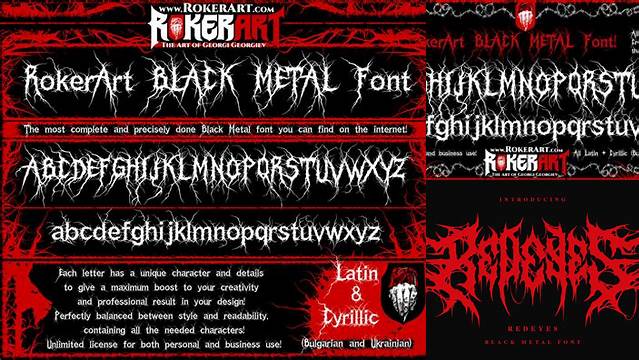
Free Black Metal Font Generator Online
Hey guys! Ever been captivated by the raw, aggressive aesthetic of black metal? The jagged, often illegible fonts are a huge part of that iconic look. Well, you're in luck! We're diving deep into the world of black metal font generators – your free online ticket to creating that wicked visual style. This article is your ultimate guide to finding, using, and understanding these awesome tools.
What is a Black Metal Font?
Before we jump into the generators, let's define what makes a font truly black metal. Think sharp, angular lines, often distorted and almost illegible. Imagine thorny vines, shattered glass, or even the teeth of some monstrous beast. Black metal fonts aim to evoke a sense of darkness, chaos, and rebellion. They're not exactly your everyday Arial or Times New Roman! These fonts are a crucial element in the overall visual presentation of the genre, mirroring the extreme and often controversial themes found in black metal music. The harshness of the font visually complements the intense and aggressive nature of the music itself. It's a perfect example of form following function, where the visual style reinforces the aural experience. Black metal fonts are more than just letters; they're a statement.
Why Use a Black Metal Font Generator?
So, why not just hunt down individual fonts? Well, using a black metal font generator offers several advantages. First off, it's fast and convenient. You can whip up variations and experiment with different styles in seconds. Many online generators are also free, which is a huge plus. You don't need to be a graphic design whiz or spend a fortune on software. Plus, generators often offer a level of customization that you wouldn't get with pre-made fonts. You can tweak the thickness, sharpness, and overall distortion to create something truly unique. Think of it as your own personal black metal typography lab! It gives you the creative freedom to explore the visual depths of the genre and craft logos, artwork, or anything else that screams (or should we say, shrieks?) black metal.
1. Exploring Free Online Black Metal Font Generators
Alright, let's get to the good stuff! The internet is teeming with free online black metal font generators, but finding the right one can be a bit of a quest. We'll explore some of the top contenders, highlighting their pros, cons, and unique features. This includes generators that offer a wide range of customization options, as well as those that specialize in creating specific black metal font styles. We'll also discuss how to identify generators that produce high-quality results and avoid those that might result in pixelated or distorted images. The goal here is to empower you with the knowledge to navigate the online landscape and find the perfect tool for your specific needs. Whether you're designing a band logo, creating album art, or just want to add a touch of darkness to your project, we've got you covered.
2. Top Black Metal Font Generator Websites
Time to name names! We'll delve into some specific websites that offer black metal font generation services. We'll provide direct links, walk you through their interfaces, and even show you some examples of the fonts they can create. Think of this as your curated list of the best resources the web has to offer. We'll explore websites that offer a variety of styles, from the classic jagged look to more modern interpretations of the genre. We'll also highlight any unique features that each generator offers, such as the ability to add custom symbols or adjust the level of distortion. The aim is to give you a comprehensive overview of the available options, so you can make an informed decision about which tool is right for you. After all, the perfect font is just a few clicks away!
3. How to Use a Black Metal Font Generator
Okay, you've found a generator – now what? This section breaks down the step-by-step process of using a black metal font generator. We'll cover everything from inputting your text to downloading the final image. We'll walk you through the interface, explaining each option and setting along the way. This will include things like choosing the font style, adjusting the size and spacing, and adding any special effects. We'll also provide tips and tricks for getting the best results, such as using specific keywords or experimenting with different combinations of settings. Even if you're a complete beginner, this section will equip you with the knowledge and confidence to start creating awesome black metal typography. So, let's get hands-on and turn your words into works of dark art!
4. Customizing Your Black Metal Font
The beauty of a black metal font generator is the level of customization they offer. We'll explore the various settings and options available, from tweaking the thickness and sharpness of the lines to adding distortion and special effects. We'll discuss how to use these features to create a font that perfectly matches your vision. This might involve experimenting with different levels of distortion to achieve a specific look, or adjusting the spacing between letters to create a sense of tension. We'll also cover how to add custom symbols or glyphs to your font, allowing you to create truly unique and personalized designs. Think of it as sculpting your own visual representation of darkness and aggression. The possibilities are endless, so let your creativity run wild!
5. Tips for Creating the Perfect Black Metal Font
Creating a killer black metal font isn't just about slapping some distortion on some letters. We'll share some pro tips and tricks to help you achieve that authentic, menacing look. This will include things like using specific keywords when searching for inspiration, understanding the principles of black metal typography, and paying attention to the overall aesthetic of your design. We'll also discuss the importance of legibility, even in the world of extreme metal fonts. After all, you want your message to be conveyed, even if it's delivered in a visually aggressive way. Think of it as balancing the chaos with clarity, creating a font that is both striking and functional. With the right techniques, you can create a font that truly embodies the spirit of black metal.
6. Black Metal Font and Legibility: Finding the Balance
Okay, black metal fonts are known for being, well, not exactly the easiest to read. But there's a sweet spot! We'll discuss how to balance that chaotic, illegible vibe with actual readability. It's all about finding the right balance between visual impact and clarity. We'll explore techniques for making your font legible without sacrificing its dark and aggressive aesthetic. This might involve adjusting the spacing between letters, simplifying certain glyphs, or using a contrasting background color. We'll also discuss the importance of context and how the font will be used. For example, a logo might be more forgiving of illegibility than a paragraph of text. The goal is to create a font that is both visually striking and functional, ensuring that your message is conveyed effectively.
7. Using Black Metal Fonts in Logos
Logos are a key area where black metal fonts shine. We'll delve into how to use these fonts effectively in logo design, creating a visual identity that screams (again, literally!) black metal. We'll discuss how to choose a font that reflects the band's unique sound and style, and how to incorporate it into a logo that is both memorable and impactful. This might involve using the font as the primary element of the logo, or combining it with other graphic elements, such as symbols or illustrations. We'll also explore the use of negative space and how it can be used to enhance the visual impact of the logo. Think of it as crafting a visual signature that perfectly captures the essence of the band. A well-designed logo is essential for any band, and the right black metal font can make all the difference.